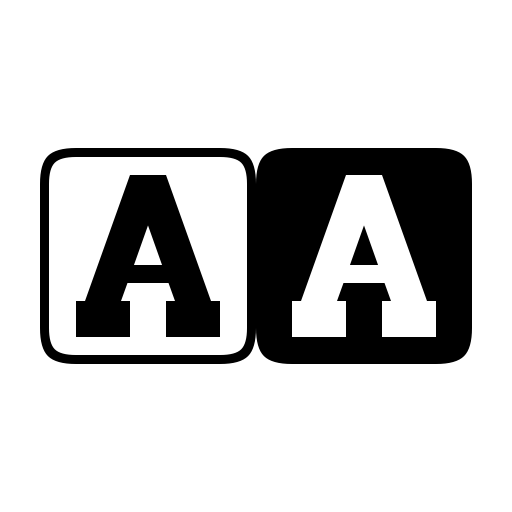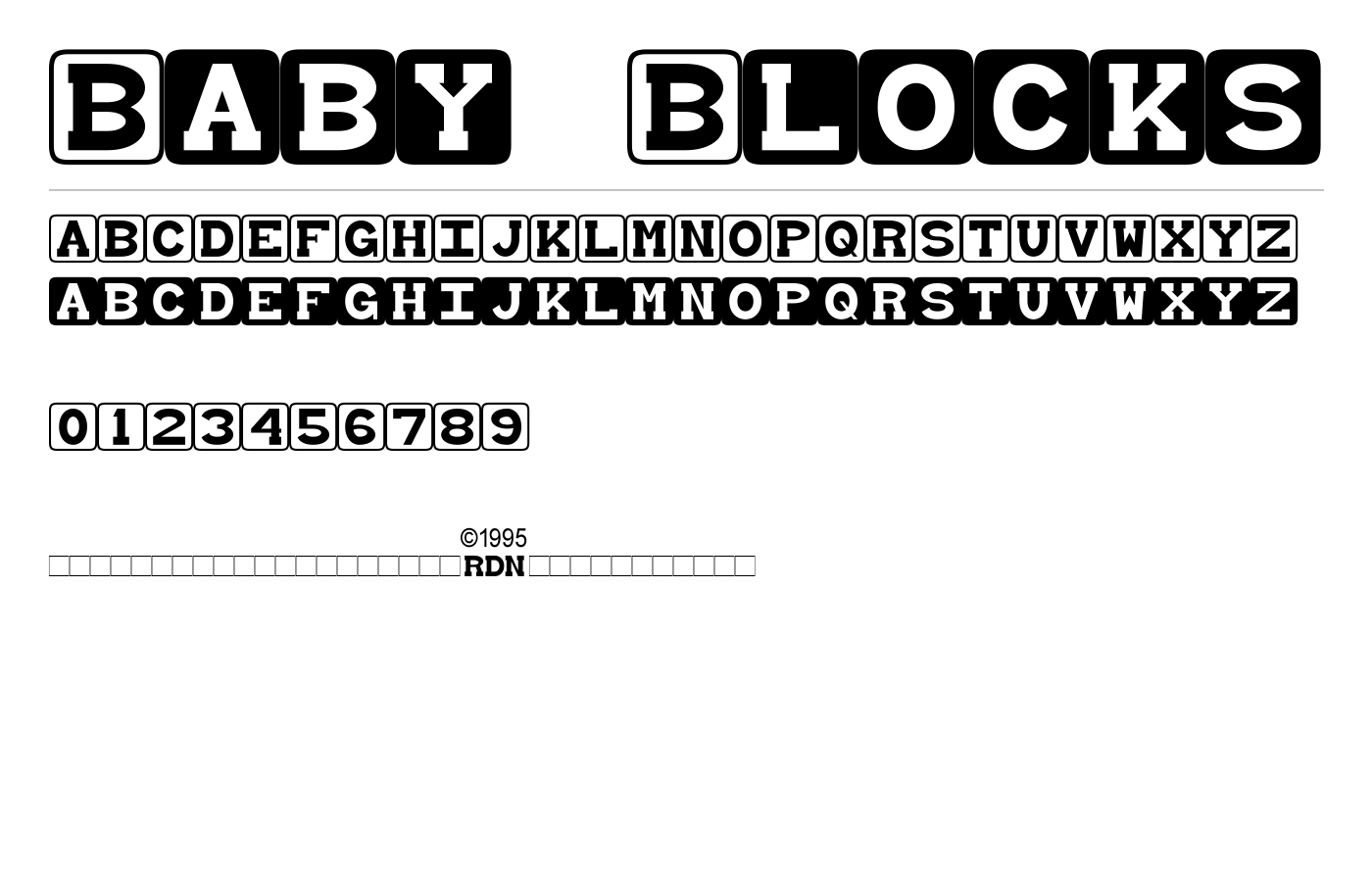
Baby Blocks is a playful, bold slab serif font characterized by its chunky, block-like letterforms enclosed in rounded square shapes, evoking the look of children's toy blocks. With its strong, friendly presence and all-caps design, it works perfectly for fun, youthful branding, headlines, and packaging where a whimsical, eye-catching style is desired. Its unique shape and sturdy weight make it ideal for engaging designs aimed at families, kids, and casual, lively themes.
Baby Blocks Font
About Baby Blocks Font